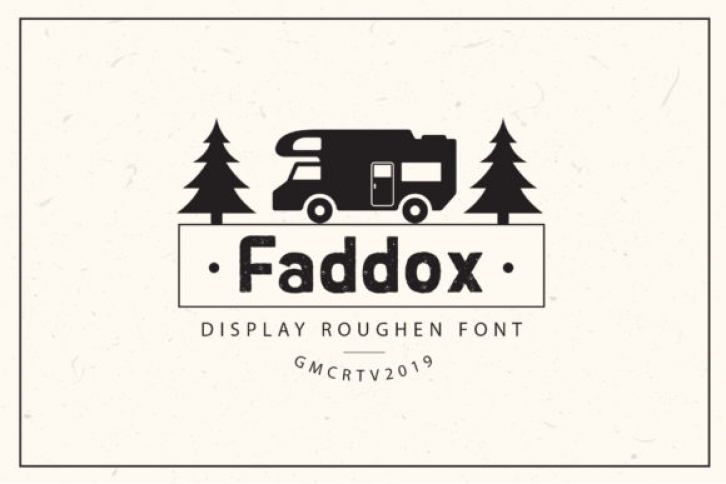
The Faddox is a sophisticated sans serif font. It was inspired by vintage motorbike posters with a strong look.
It’s perfect for adding a powerful retro look to your designs in a professional way.